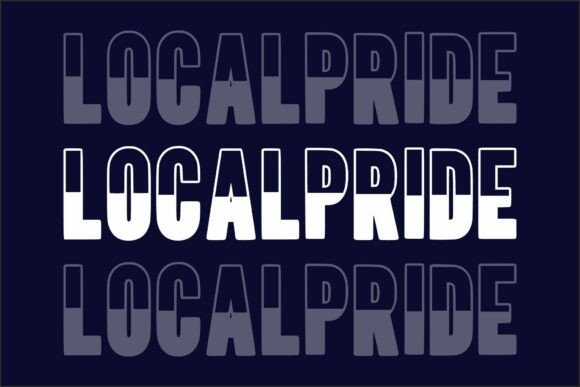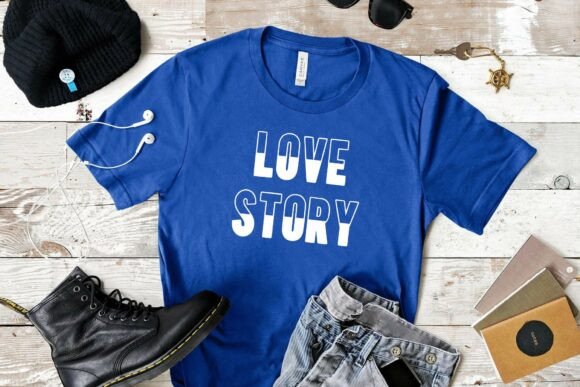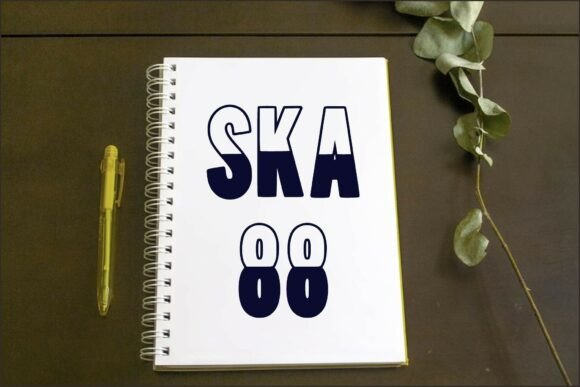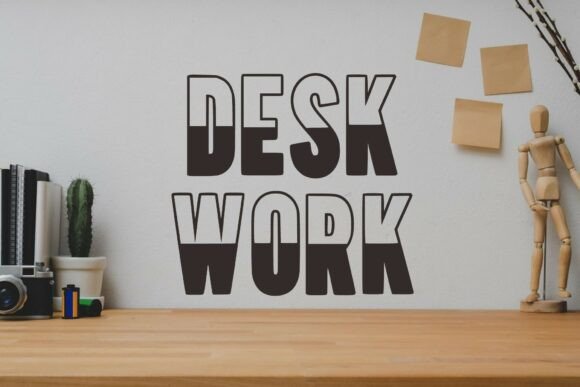
Introduction to Halftime Zone Font
Have you ever walked into a packed stadium and felt the electric energy of the crowd, the rush of competition, and the thrill of victory? That’s the kind of excitement the Halftime Zone Font aims to capture in your creative projects. This bold athletic display font is inspired by the dynamic world of sports, where every moment counts and every design matters.
As a designer, you’re always on the lookout for the perfect design resource to elevate your work. The Halftime Zone Font is a high-quality addition to your toolkit, offering a confident and energetic look that’s perfect for sports branding, team merchandise, and event posters. With its strong block structure and dynamic outline style, this font is sure to stand out in headlines, logos, and promotional materials.
Key Features of Halftime Zone Font
- Unique, bold, and eye-catching design perfect for sports-themed projects, including halftime shows and events
Honest Review: Halftime Zone Font
I recently had the chance to work with the Halftime Zone Font for a creative project, and I must say it’s been a great addition to my design resource library. One of the things that stands out about this font is its versatility – it’s perfect for creating eye-catching graphics and promotional materials.
- Only available in a limited number of font weights and styles
- May not be suitable for complex or detailed designs
Overall, I’m quite impressed with the Halftime Zone Font, and I think it’s a great choice for designers looking for a high-quality, easy-to-use design resource.
The Halftime Zone Font is a free design resource that can elevate your creative project with its high-quality and modern aesthetic. This font is ideal for those looking for a unique and eye-catching design element.
The Halftime Zone Font is ideal for a variety of projects, including sports branding, event promotions, and music festivals. It’s also perfect for creating bold and eye-catching typography for social media, websites, and print materials.